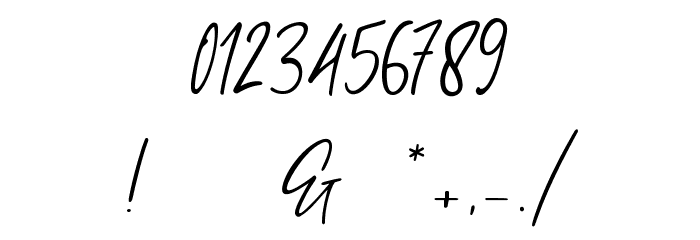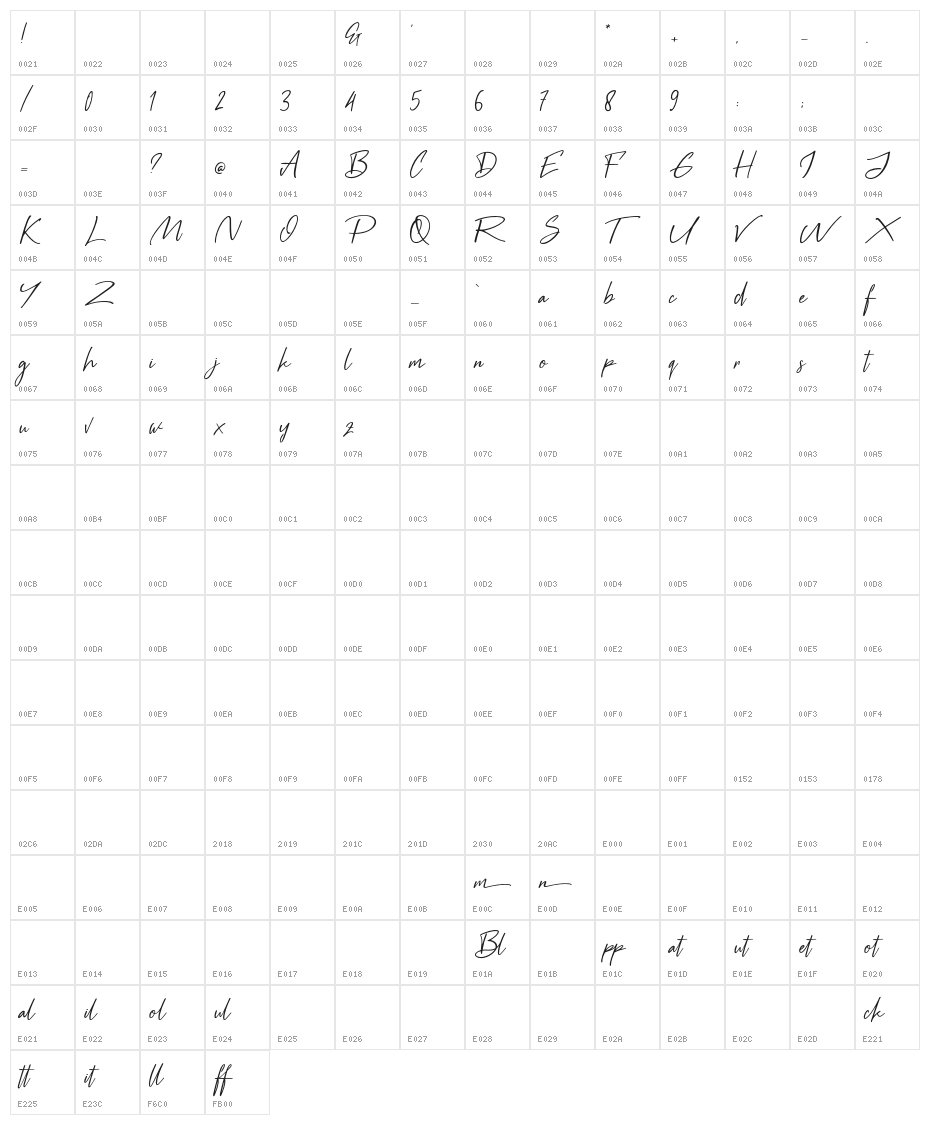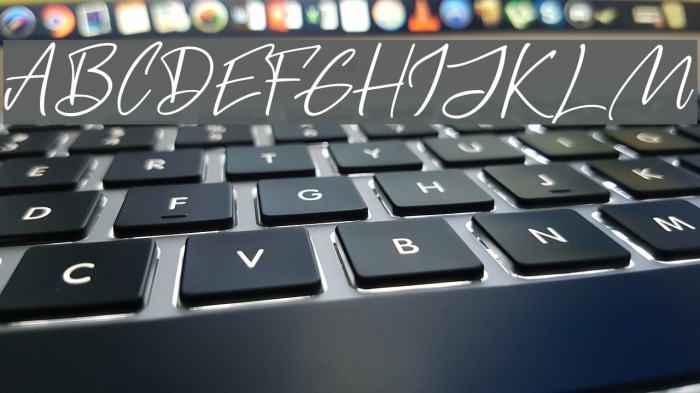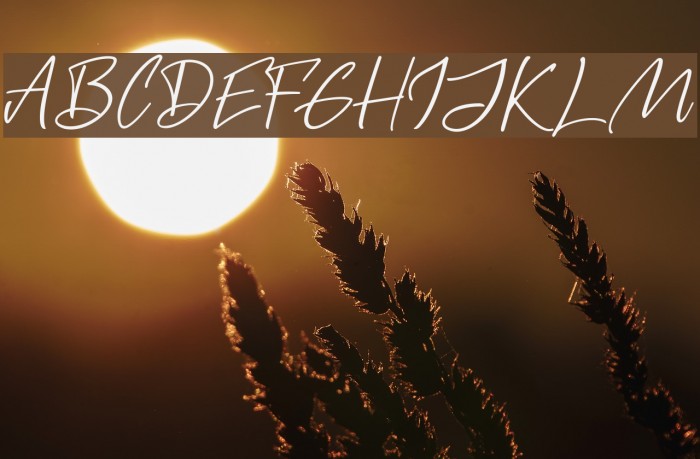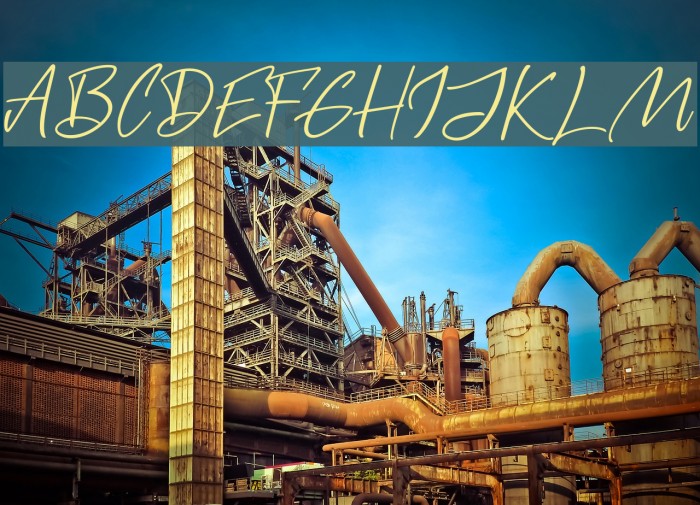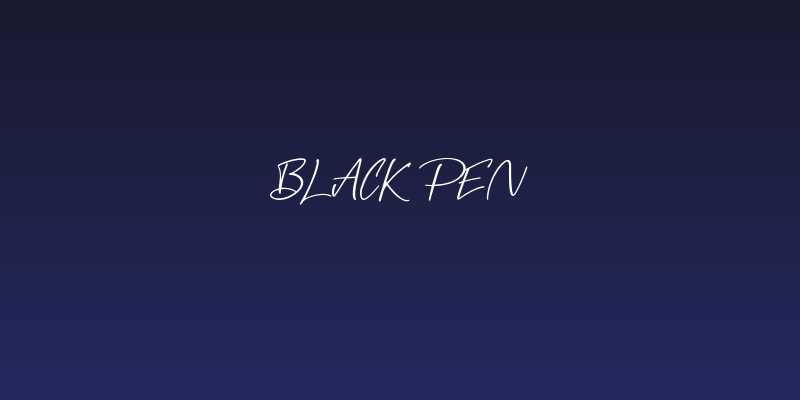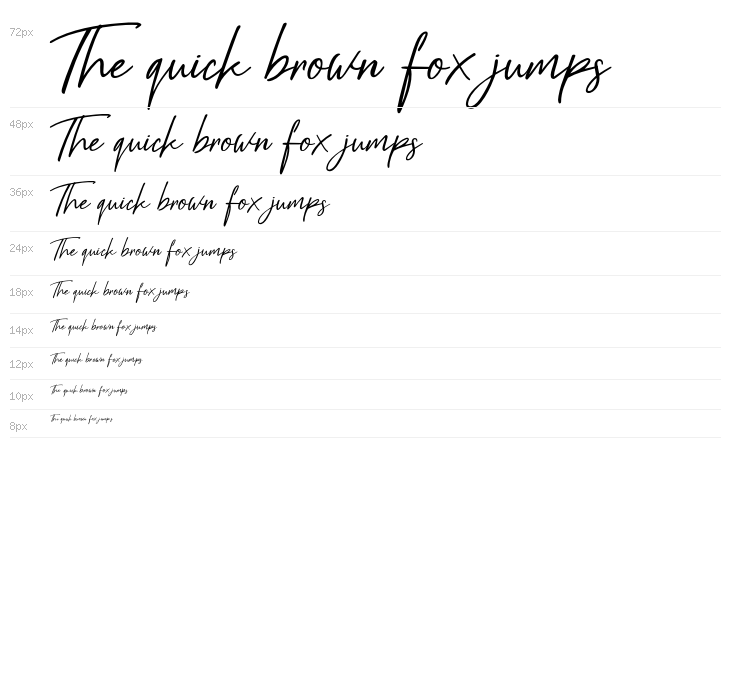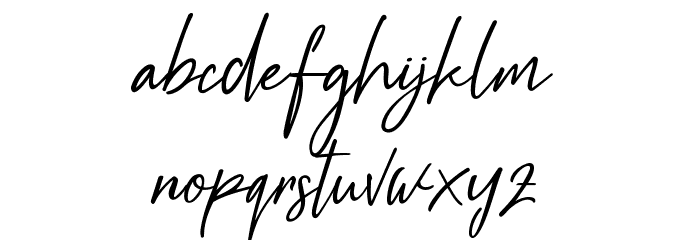
Black Pen Font
Black Pen Description
This font exudes a handwritten, cursive style with elegant and fluid strokes. The characters are connected, giving it a seamless and flowing appearance. The uppercase letters are slightly more elaborate, with some featuring extended loops and swashes, adding a touch of sophistication. The lowercase letters maintain a consistent style, with smooth curves and a natural, organic feel. The numerals are clear and legible, matching the overall aesthetic. Special characters are thoughtfully designed to complement the script, maintaining the font's cohesive look.
| Proposed Projects | Ideal for wedding invitations, personal branding, greeting cards, and elegant packaging designs. |